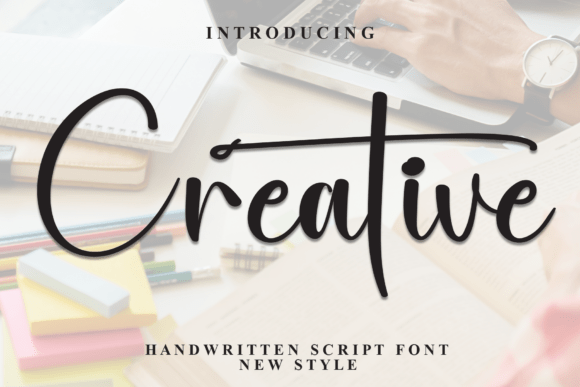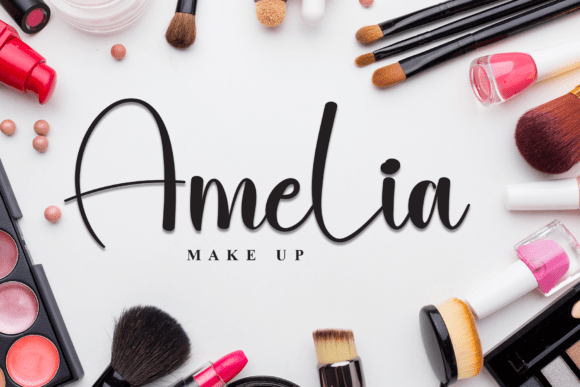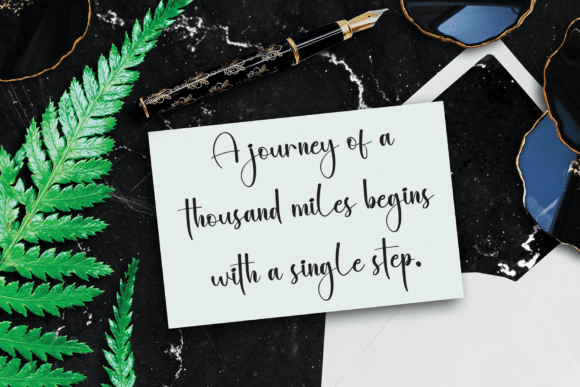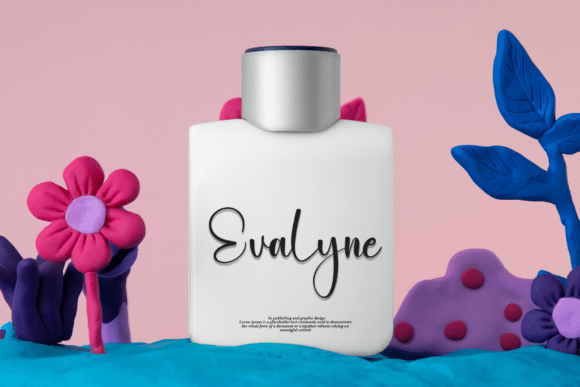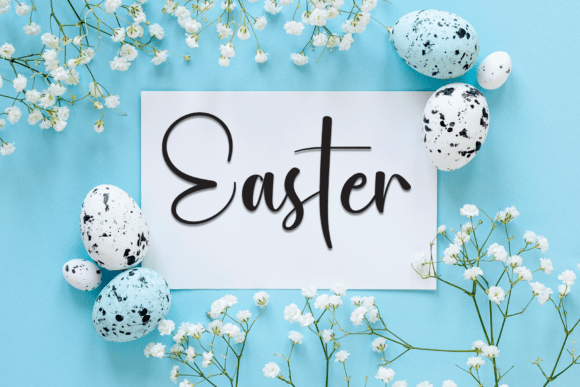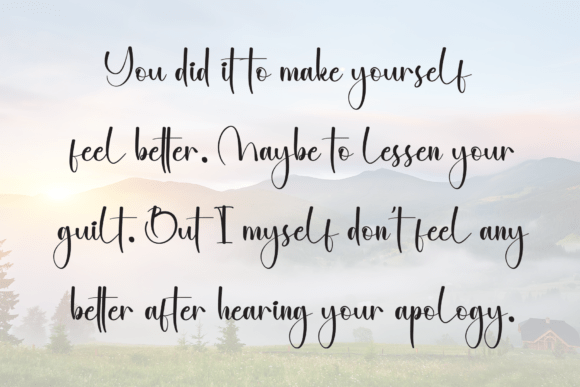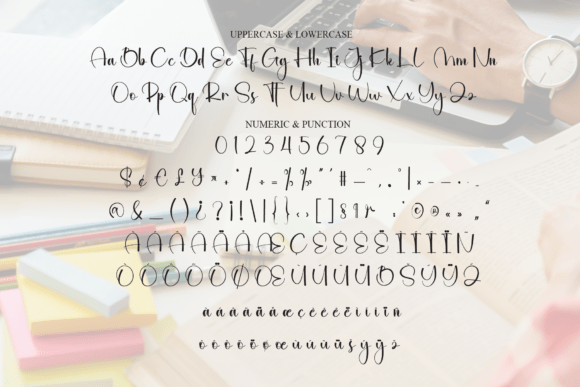
The Perfect Script: Unlocking the Power of Creative Font
Have you ever been in a creative flow, where ideas seem to pour out effortlessly, and your imagination knows no bounds? That’s the magic of creativity, and it’s precisely what the Creative Font embodies. This stylish handwritten script font is designed to capture the essence of elegance and playfulness, making it the perfect addition to any project.
Whether you’re crafting invitations, building a brand, or creating engaging social media content, the Creative Font is a valuable tool in your design arsenal. Its flowing curves and natural rhythm bring a personal, charming touch that sets your work apart. With its sophisticated design, this font adds warmth and creativity to any project, making it an invaluable resource for designers looking to elevate their craft.
Creative Font Key Features
- Unique Characteristics: Unique letterforms, subtle flair, and elegant lines create a distinctive and creative look for any design project.
Designer Review: Creative Font
As a designer, I’m always on the lookout for fonts that bring a unique touch to my projects. Creative Font is one of those fonts that caught my eye. Here’s what I think:
- Playful Feel: Creative Font has a fun, whimsical feel that’s perfect for projects that need a bit of personality.
- Highly Versatile: From titles to body text, this font adapts well to different contexts and styles.
- Well-Defined Characters: The font’s characters are crisp and clear, making it easy to read even at smaller sizes.
- Limited Support for Non-Latin Scripts: Creative Font doesn’t support non-Latin scripts as well as some other fonts on the market.
- May Not Be Suitable for Formal Text: While it’s great for playful projects, this font may not be the best choice for formal documents or academic texts.
Creative Font is a solid choice for designers looking for a unique, versatile font. While it has its limitations, its playful feel and well-defined characters make it a great addition to any design project. Just be mindful of its limitations when working with non-Latin scripts or formal text.
Tips for Getting the Most Out of Creative Font
Use Creative Font for headings and titles to add a touch of elegance to your designs. Experiment with different font sizes and colors to create visual interest. Use Creative Font in combination with other fonts to create a unique and eye-catching design.